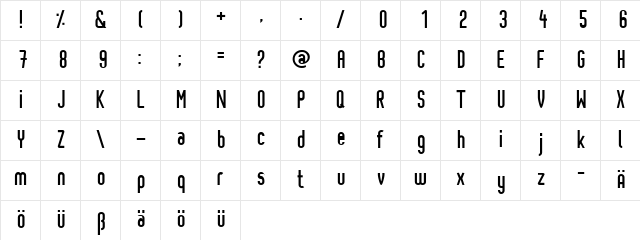
Pixochrome Regular
Design Context for Pixochrome Typeface
Pixochrome takes a measured approach to typography — its balanced proportions and neutral character make it a reliable workhorse for both digital and print work.